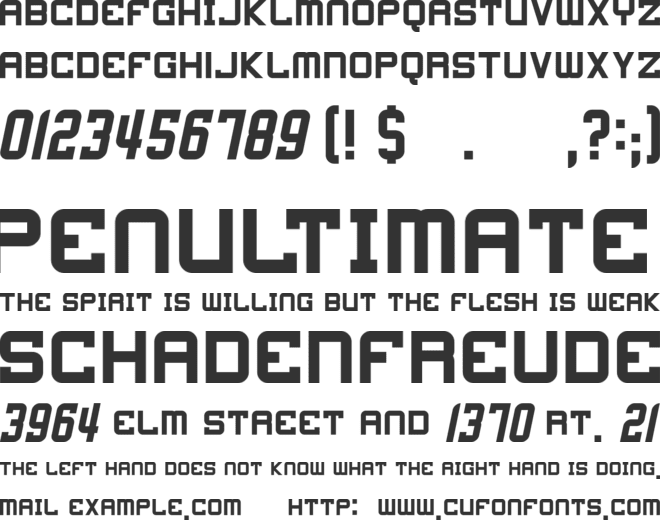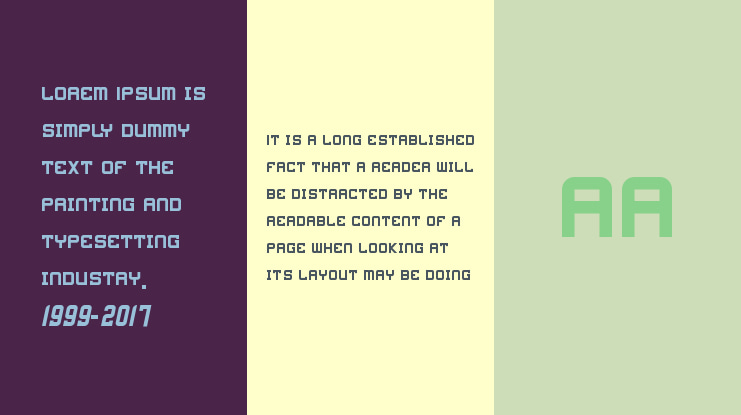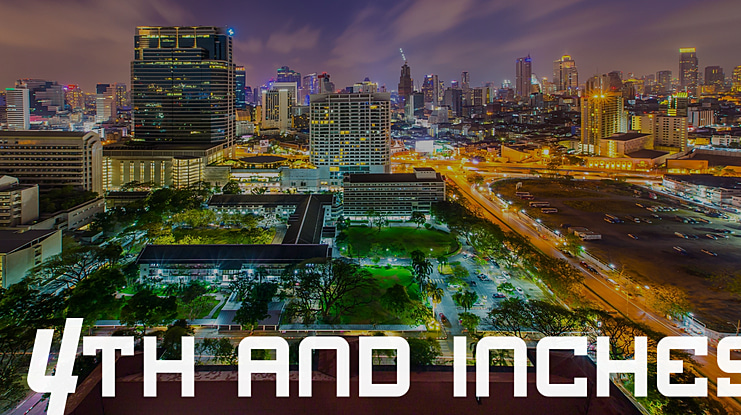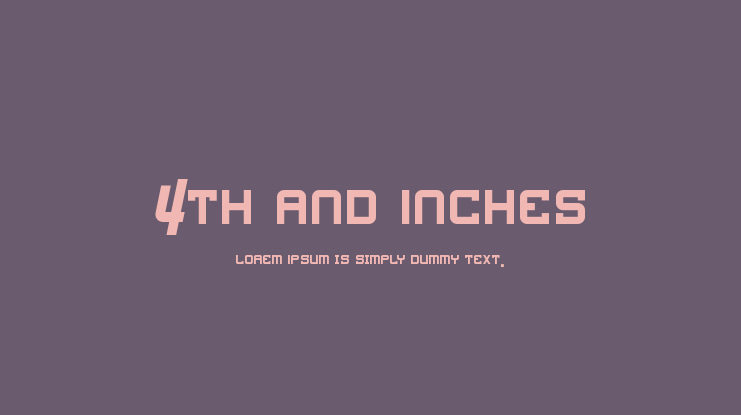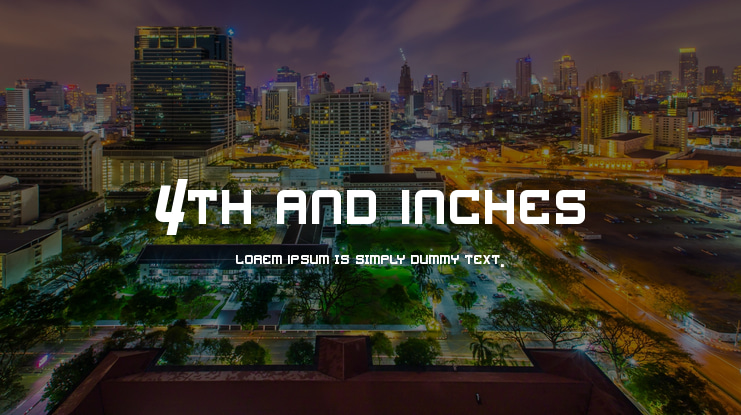
4th and Inches Font
Based on the proprietary font used by Russell Athletic, makers of sports apparel as seen on:
• Georgia Tech BKB
• Washington State, Alabama State, Tennessee State, Mississippi Valley State, and many others in college football
• Chicago Rush arena football.
I couldn't find any information on it even though so many high school, college, and minor league football and basketball teams used, or had used it. So I made my own version, and am pleased with how it turned out. Feel free to modify it as needed.